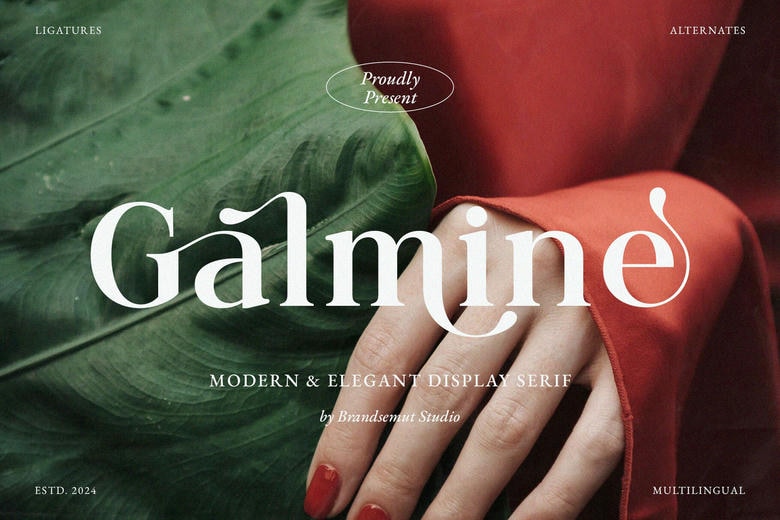
Galmine Font
Presenting Galmine Modern & Elegant Serif Font. Galmine is a novel and elegant font, most suitable for use as titles for text, logos, brands, magazines, packages and cards. Lately Galmine brings clean line great curves to any project whether big or small that can give a special classy added to it.
Galmine Serif Font